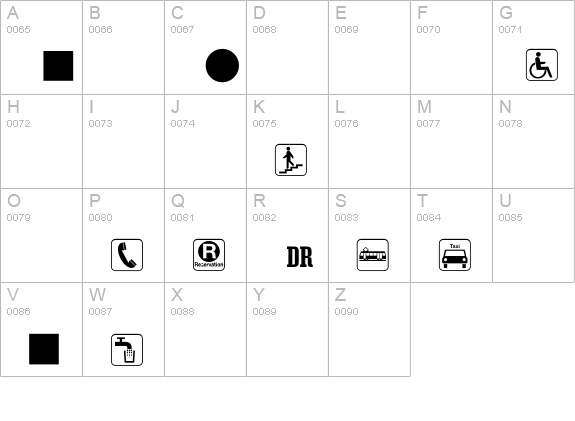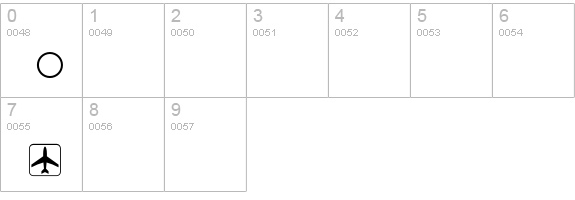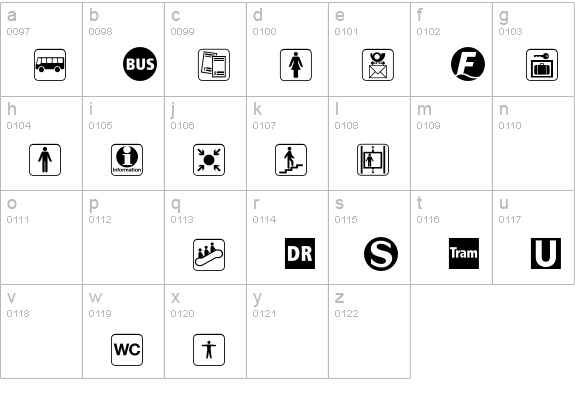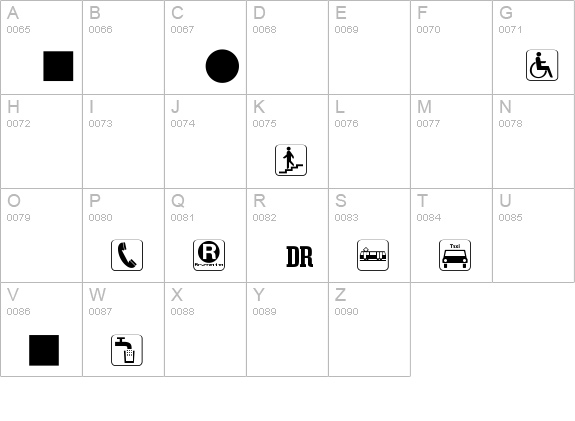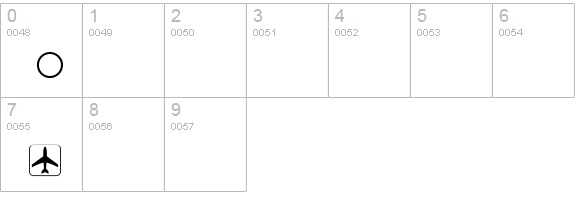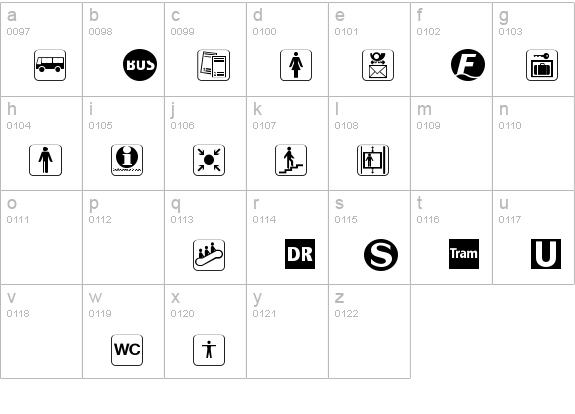
DBSystem-PictNeu is a modern and sleek font that combines elements of technology and innovation. With its clean lines and futuristic appearance, this font is perfect for projects that require a contemporary and cutting-edge look. The unique design of DBSystem-PictNeu makes it stand out from other fonts, making it a great choice for branding, logos, and digital design. The best part about DBSystem-PictNeu is that it is available for free download at FontsMarket.com. This means that you can easily access this font and use it in your projects without any cost. Whether you are a designer looking for a fresh font to elevate your work or a hobbyist wanting to add a modern touch to your creations, DBSystem-PictNeu is a versatile and stylish option that won't break the bank. Download DBSystem-PictNeu today from FontsMarket.com and unleash your creativity with this cutting-edge and free font!